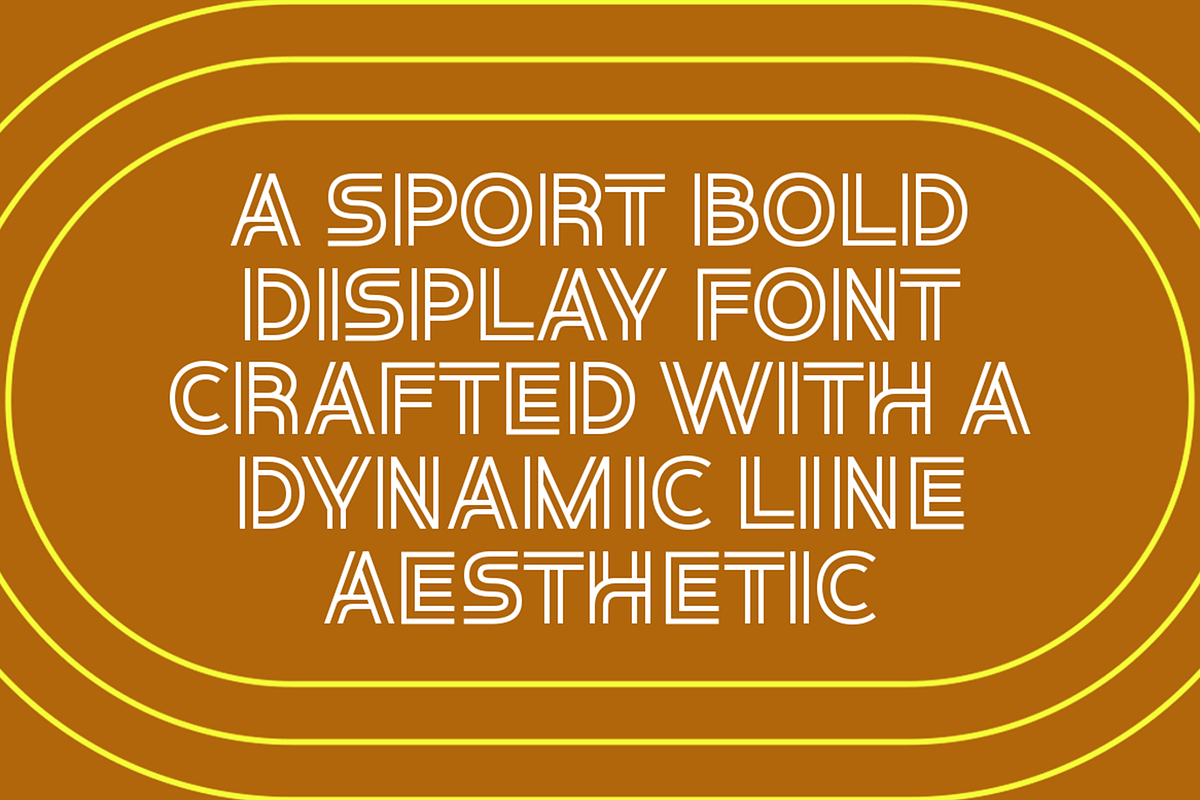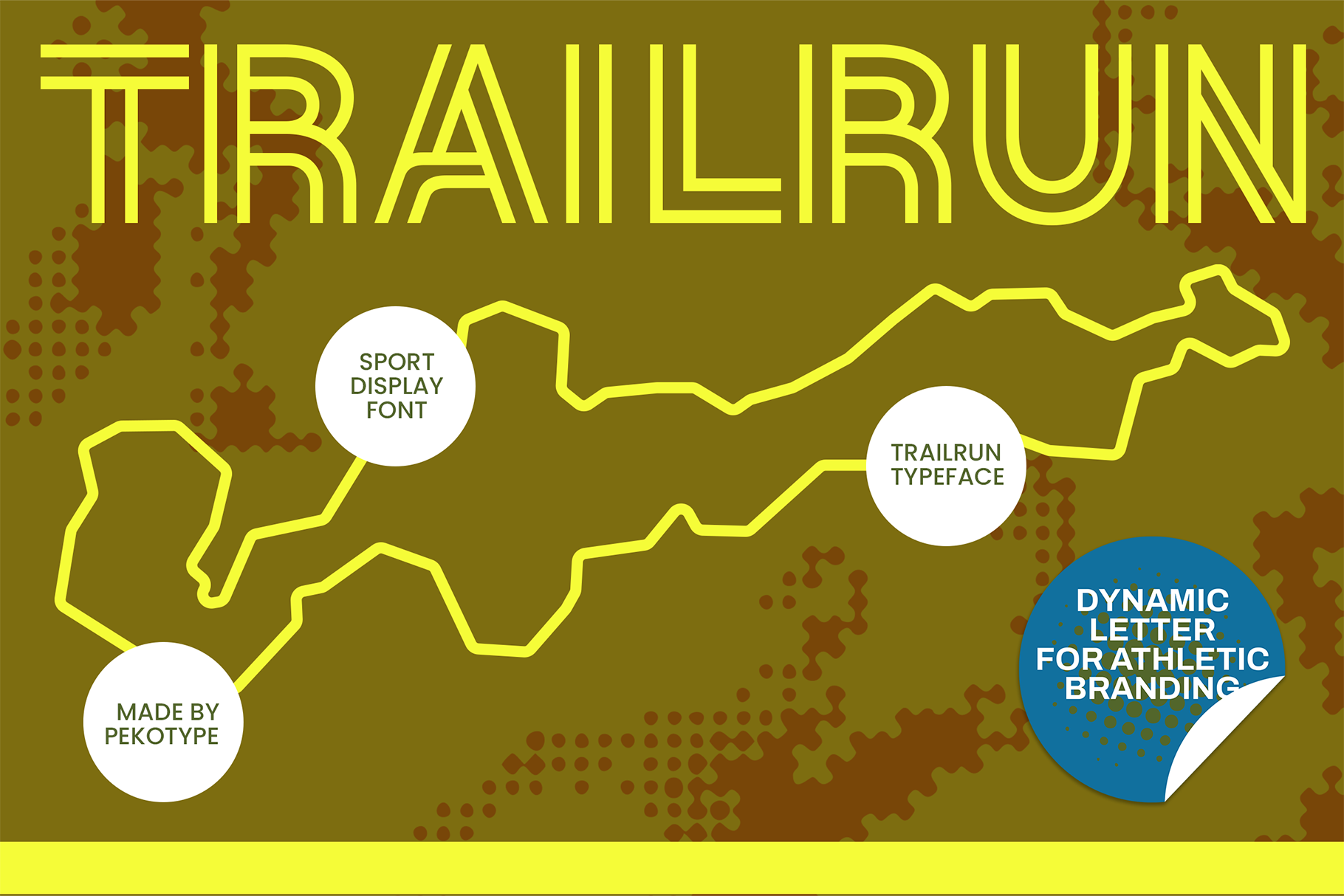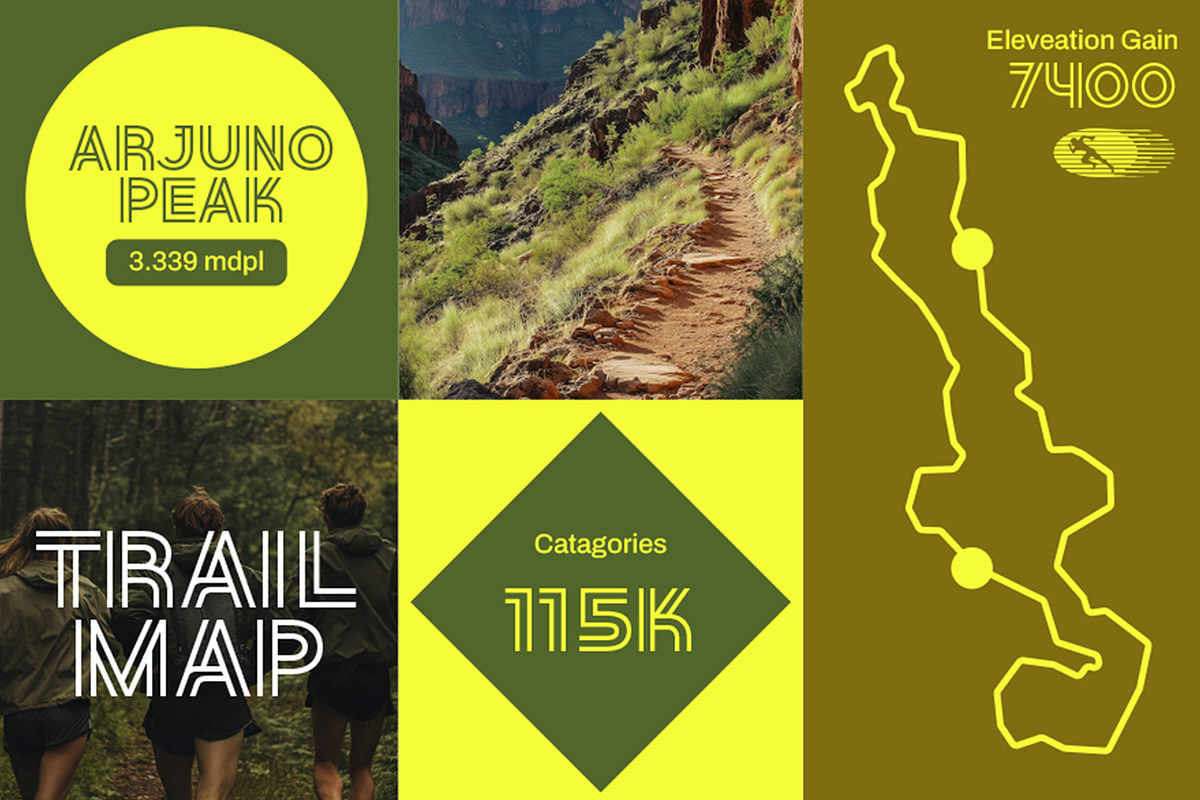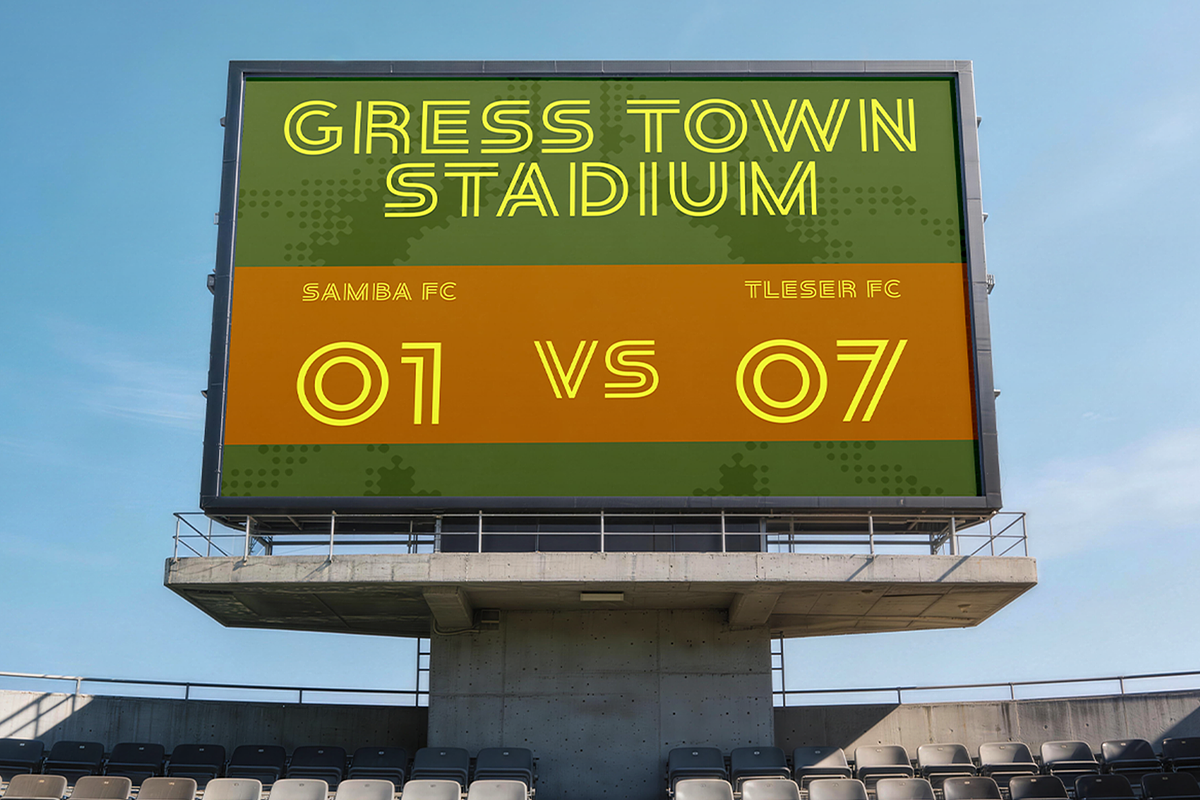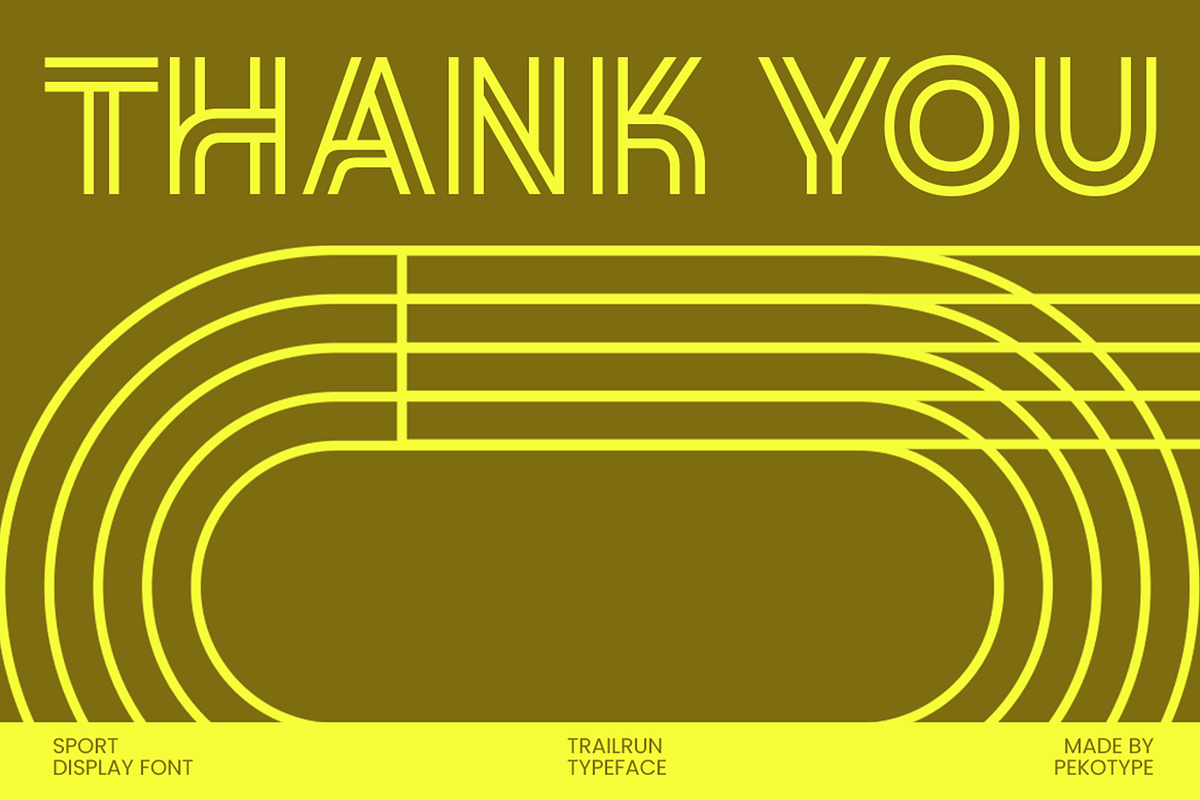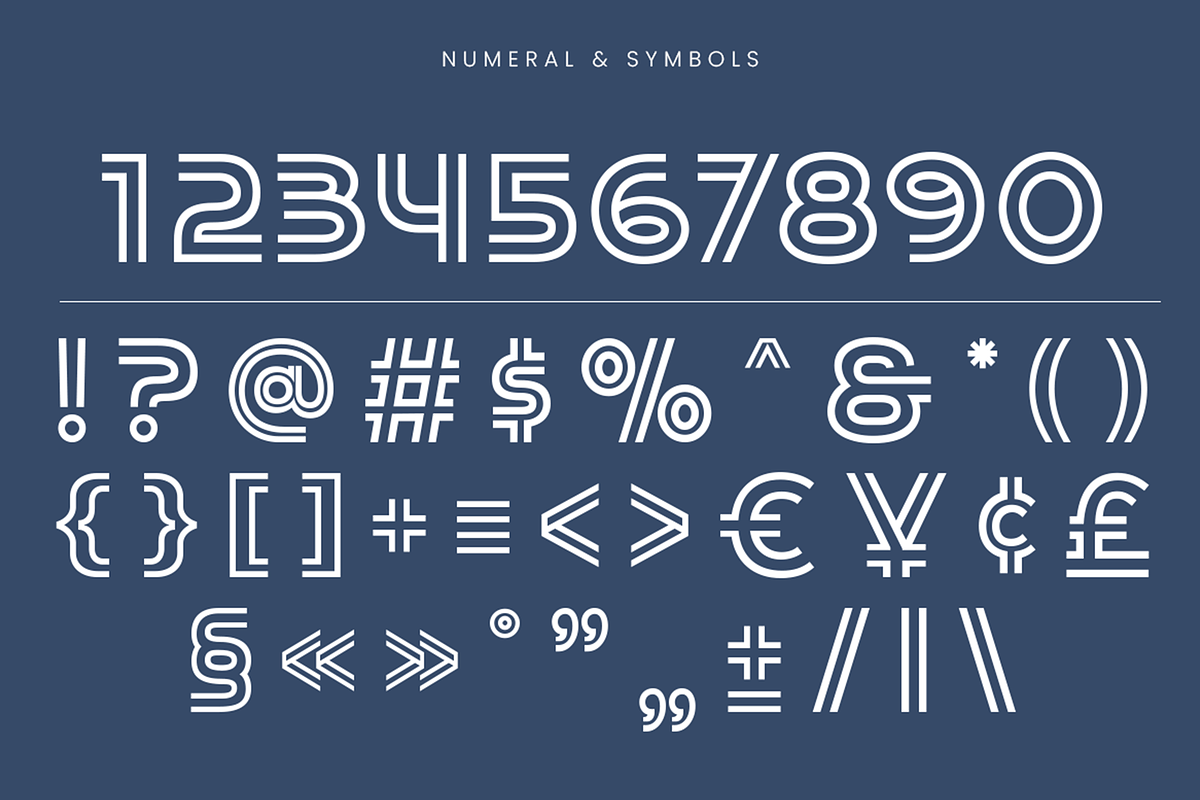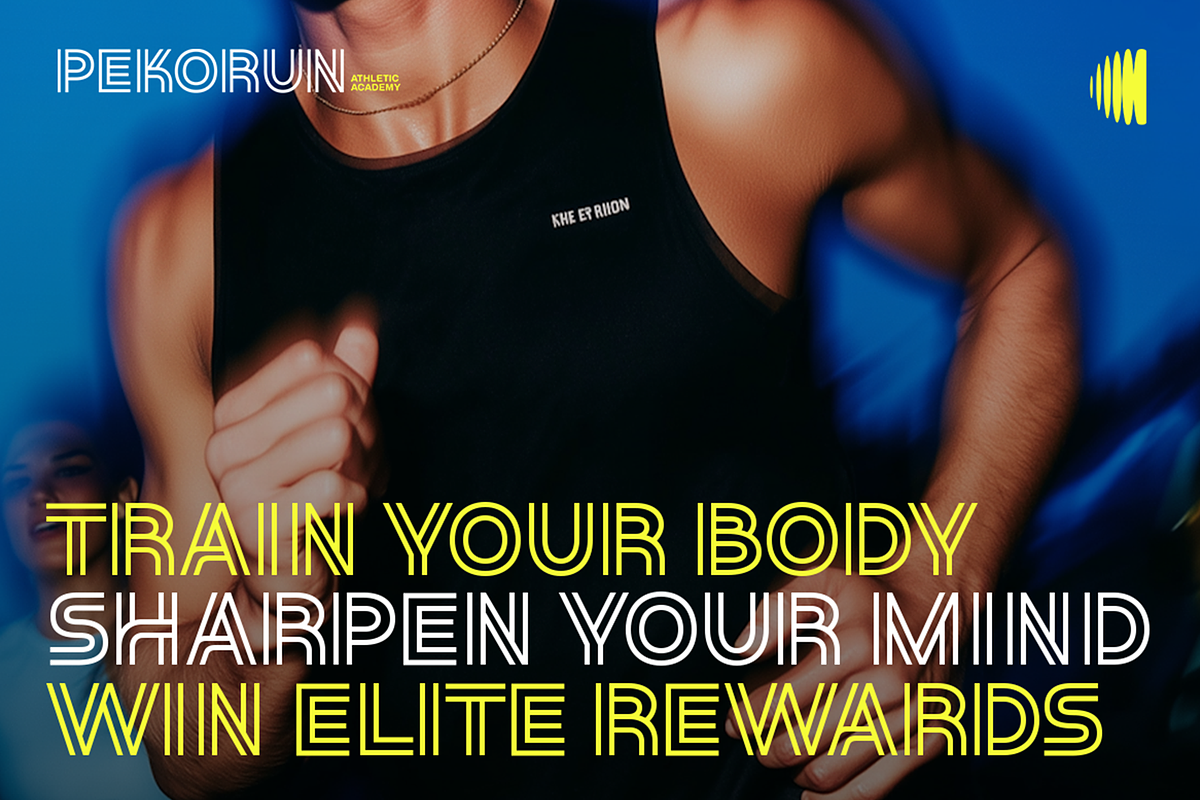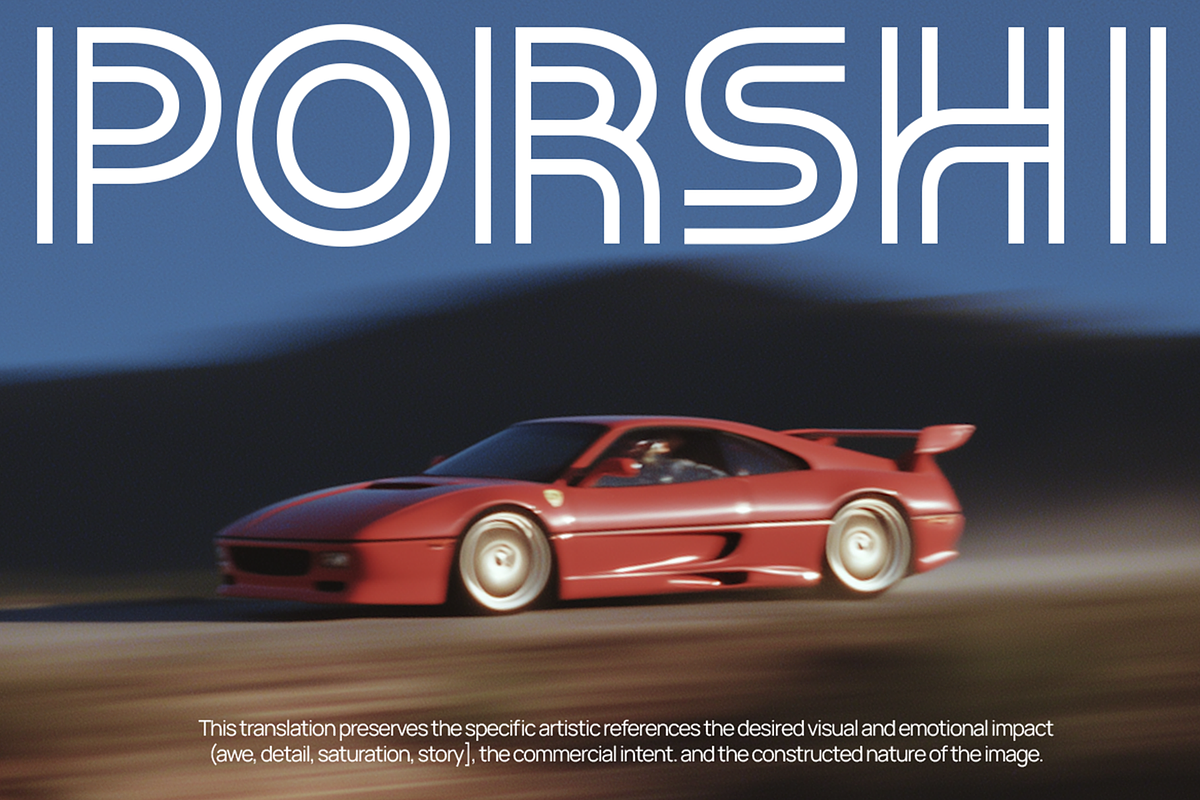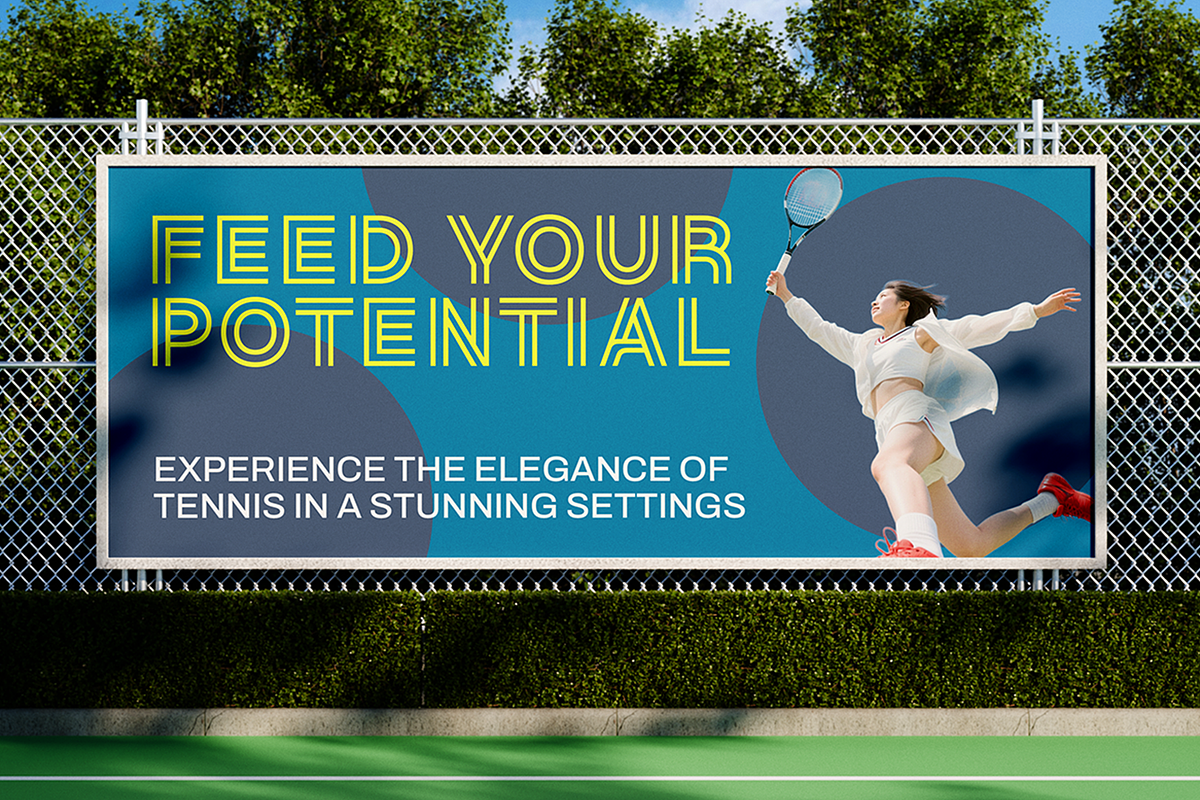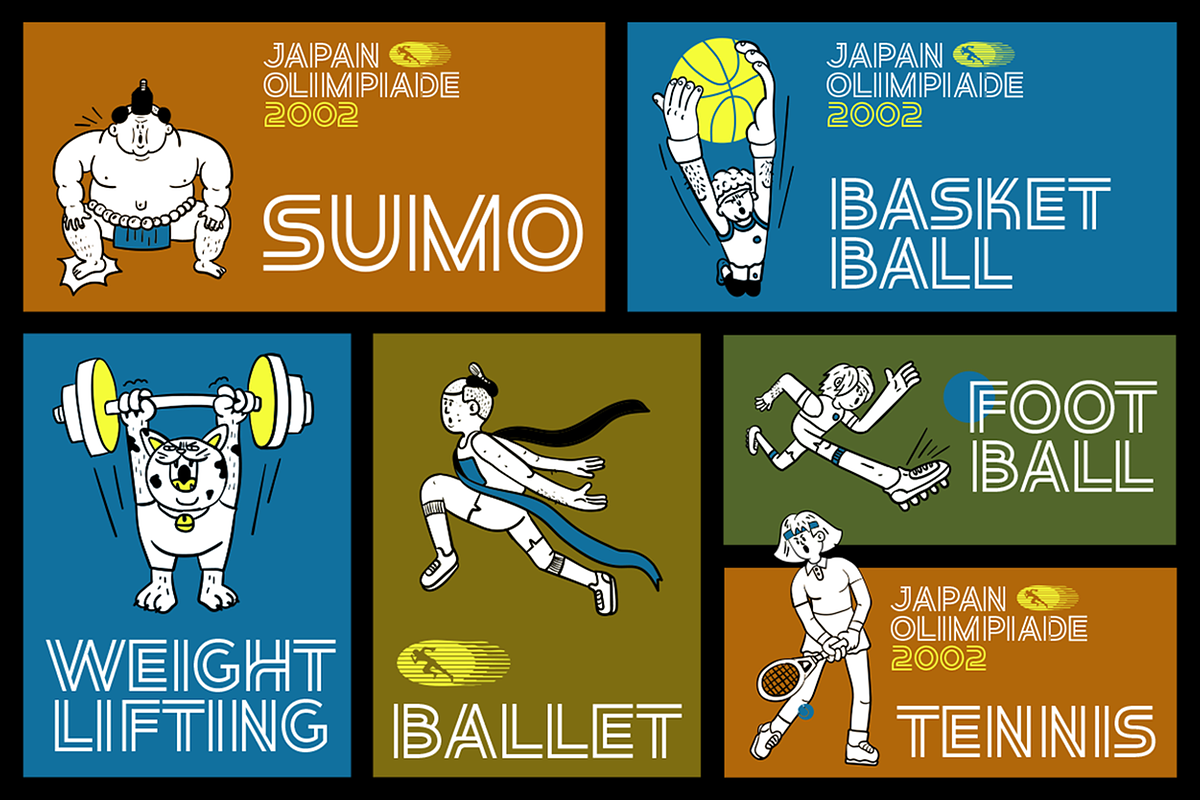
Trailrun - Sports Bold Font
TRAIL RUN - Sports Bold Font is a bold sport display font built with a dynamic line style that gives every letter a sense of speed and movement. The clean geometric shapes combined with layered line details create a modern athletic look that feels active and energetic. It’s an all-caps display typeface made to stand out, especially in designs that need power, motion, and a strong outdoor vibe.
TRAIL RUN is perfect for sports branding, running events, marathon posters, gym graphics, outdoor campaigns, club logos, racing themes, stadium signage, and activewear design. It works great for trail running communities, fitness promotions, competition banners, and bold motivational quotes. If you want a sporty display font that feels fast, modern, and full of motion, TRAIL RUN is ready to push your design forward.
- All Caps
- Number, Symbol, & Punctuation